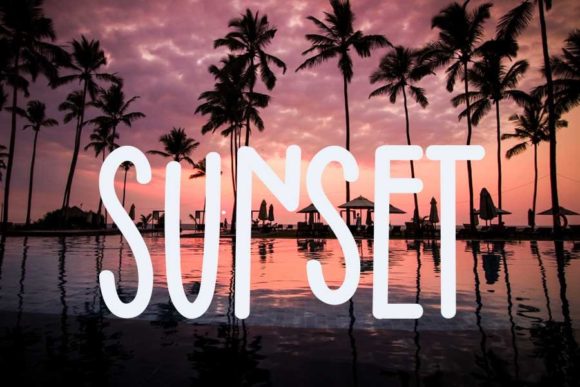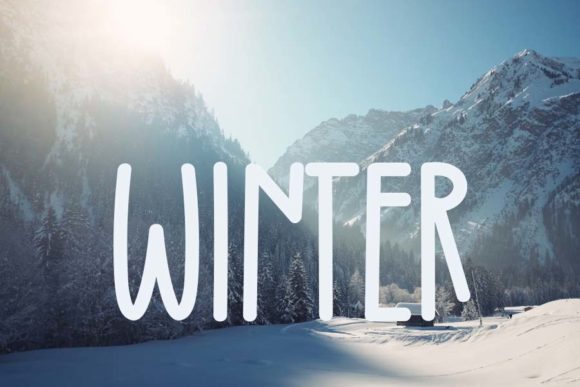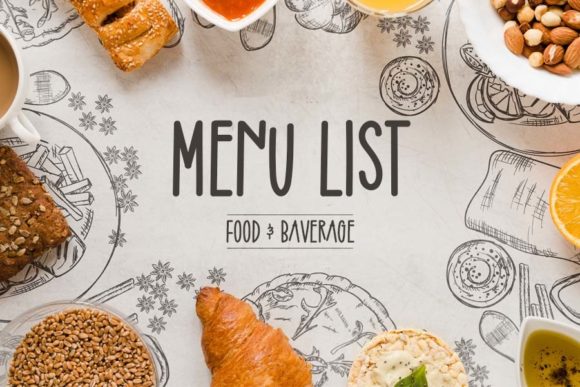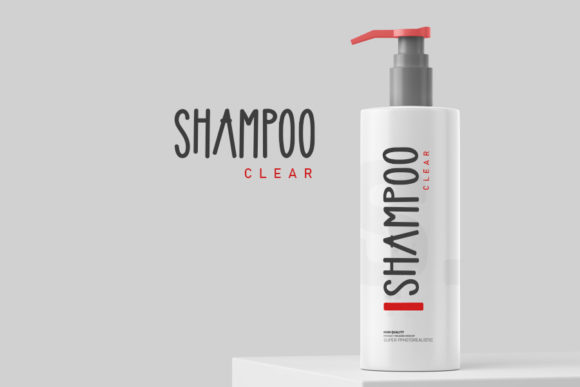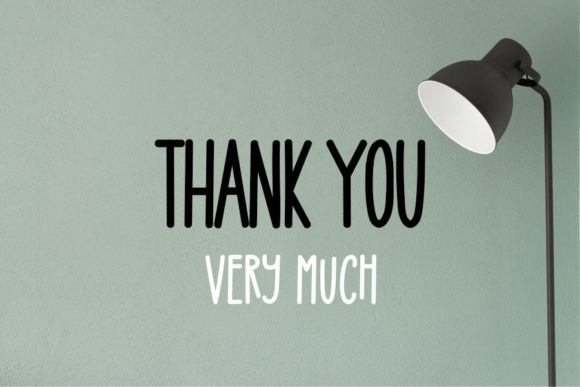
Introducing “Lovely Rainbow,” a cute and simple handwritten font that will bring a playful and whimsical touch to your designs. With its charming and slightly quirky style, this font is the perfect choice for logos, branding, posters, and all your crafty DIY projects.
The delightful curves and unique letterforms of “Lovely Rainbow” capture the essence of joy and imagination. Its handwritten look adds a personal and authentic feel to your designs, making them stand out and leave a lasting impression.
Whether you’re creating a logo for a children’s brand, designing a poster for a fun event, or adding a creative touch to your DIY projects, “Lovely Rainbow” will bring a vibrant and cheerful energy to your work. Its simplicity and versatility make it suitable for a wide range of design purposes.
With “Lovely Rainbow,” you have the freedom to explore endless possibilities. Experiment with different colors, sizes, and styles to create eye-catching compositions that reflect your unique vision. The font’s playful nature will inspire creativity and spark joy in your designs.
Whether you’re a professional designer or someone looking to add a touch of whimsy to your personal projects, “Lovely Rainbow” is a font that will bring smiles and happiness. Its simplicity and charm make it accessible to all, allowing you to express your creativity with ease.
So, unleash your imagination and let “Lovely Rainbow” add a dose of cuteness and creativity to your designs. Embrace the playful and quirky nature of this font, and watch as it transforms your logos, branding, posters, and DIY projects into delightful works of art.
Get ready to infuse your designs with a burst of joy and charm with “Lovely Rainbow.” Let this cute and simple handwritten font take your creations to new heights and make them truly unforgettable.